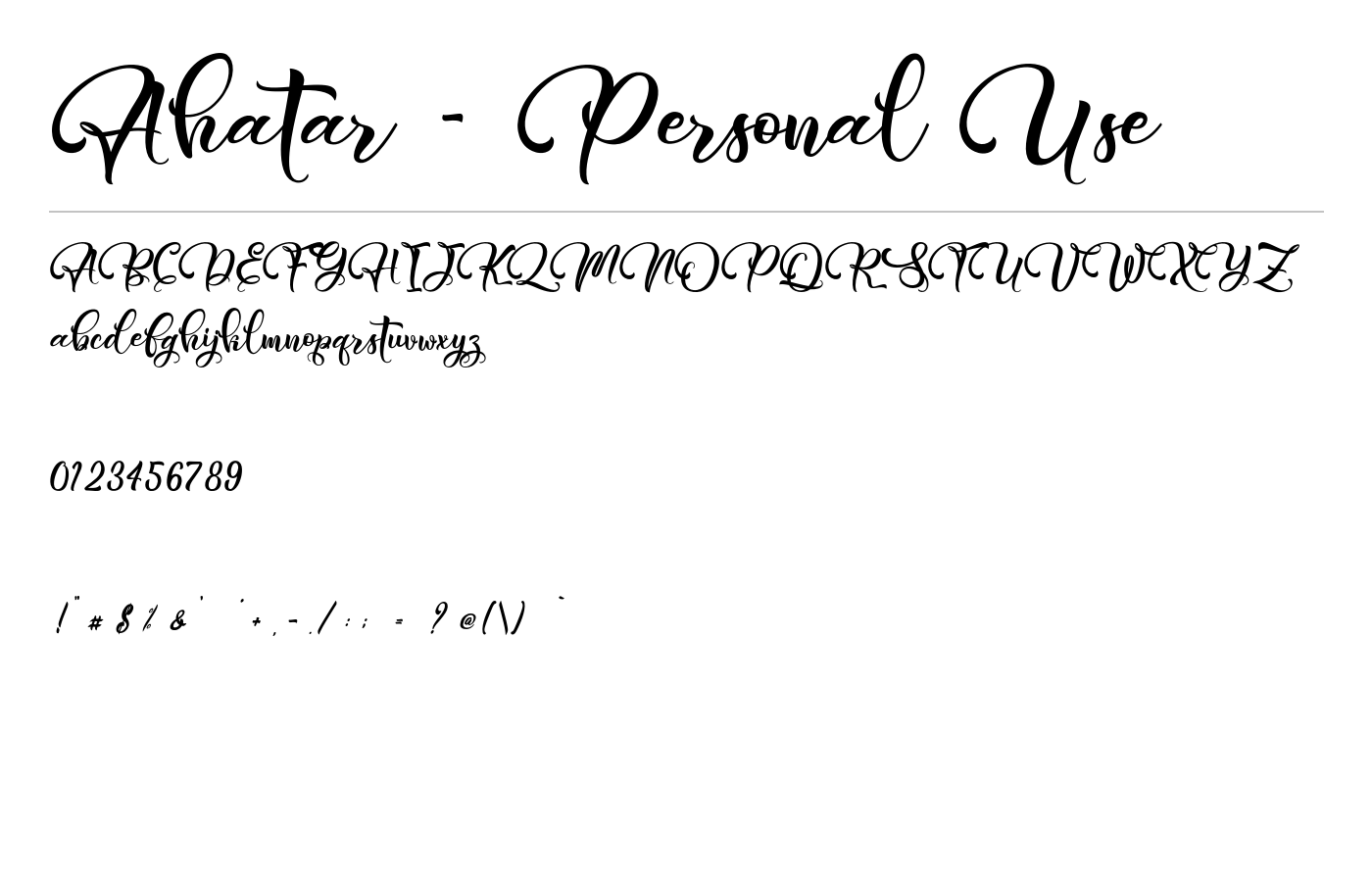
Ahatar is an elegant script font with a flowing, handwritten style that exudes sophistication and charm. Its delicate, high-contrast strokes and intricate swashes make it ideal for branding, invitations, and any design needing a personal, luxurious touch. This font works beautifully in headlines and decorative text where a refined, artistic feel is desired.
Ahatar - Personal Use Font
About Ahatar - Personal Use Font